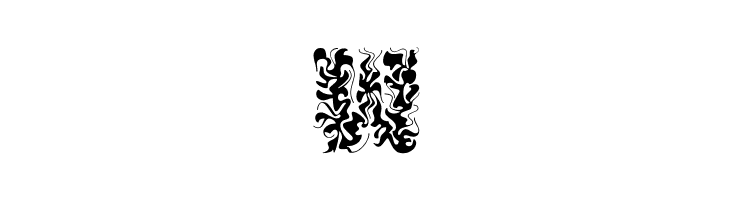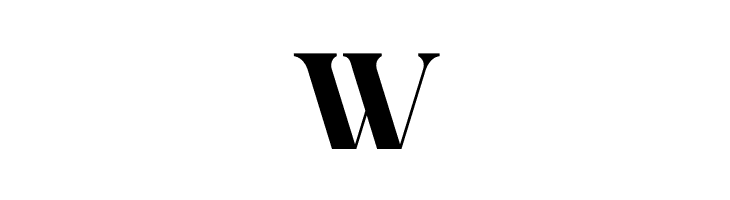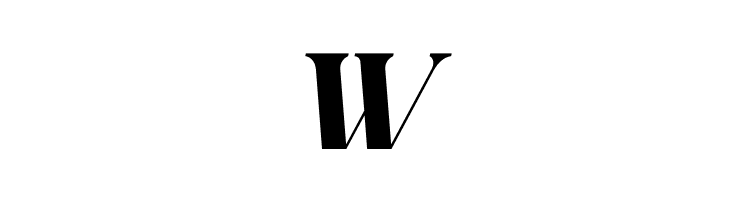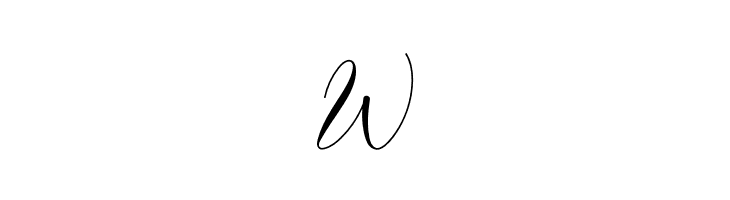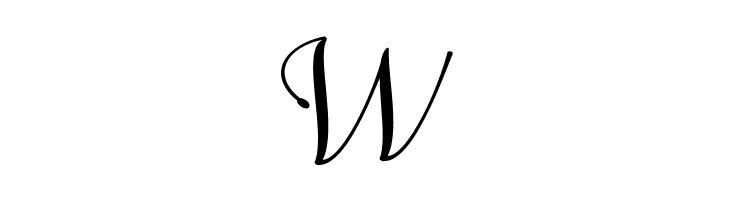
A bold, italic font with a gradient effect created by horizontal lines.
A modern italic font with a gradient line effect, offering a dynamic and stylish appearance.
A casual, handwritten italic font with smooth, medium-thick strokes.
A playful, hand-drawn outline font with a casual and artistic style.
A playful, bold outline font with a whimsical and engaging style.
A bold, italicized outline font with playful, structured characters.
An outlined, italic font with a modern and dynamic style.
A graceful and elegant script font with flowing, connected strokes.
A delicate, handwritten font with a fluid and elegant style.
A decorative and intricate font with complex curves and sharp angles.
A graceful and fluid script font with ornate uppercase letters and harmonious lowercase design.
A bold, brush-style font with an energetic and hand-painted look.
A bold, expressive handwritten font with decorative flourishes.
A bold, expressive script font with a hand-drawn, fluid style.
A bold, angular font with a futuristic and aggressive style.
A graceful script font with flowing, interconnected characters and elegant flourishes.
A bold, playful font with thick, rounded strokes and a whimsical style.
A bold, distressed font with a rugged, grunge-like appearance.
A bold, high-contrast serif font with dramatic strokes and classic elegance.
A bold, high-contrast italic serif font with elegant, sharp serifs.
A bold, flowing script font with elegant, connected letterforms.
A modern, clean font with uniform strokes and excellent readability.
A playful script font with heart motifs and cursive elegance.
A playful, handwritten-style font with bold, rounded characters.
A bold, expressive script font with high contrast and flowing connections.
An elegant, flowing script font with a sophisticated, handwritten style.
A bold, rounded font with a playful, graffiti-like style.
A playful, hand-drawn font with decorative dots and a whimsical style.
A bold, geometric font with a modern and solid appearance.
An ornate and intricate font with elaborate, swirling patterns.